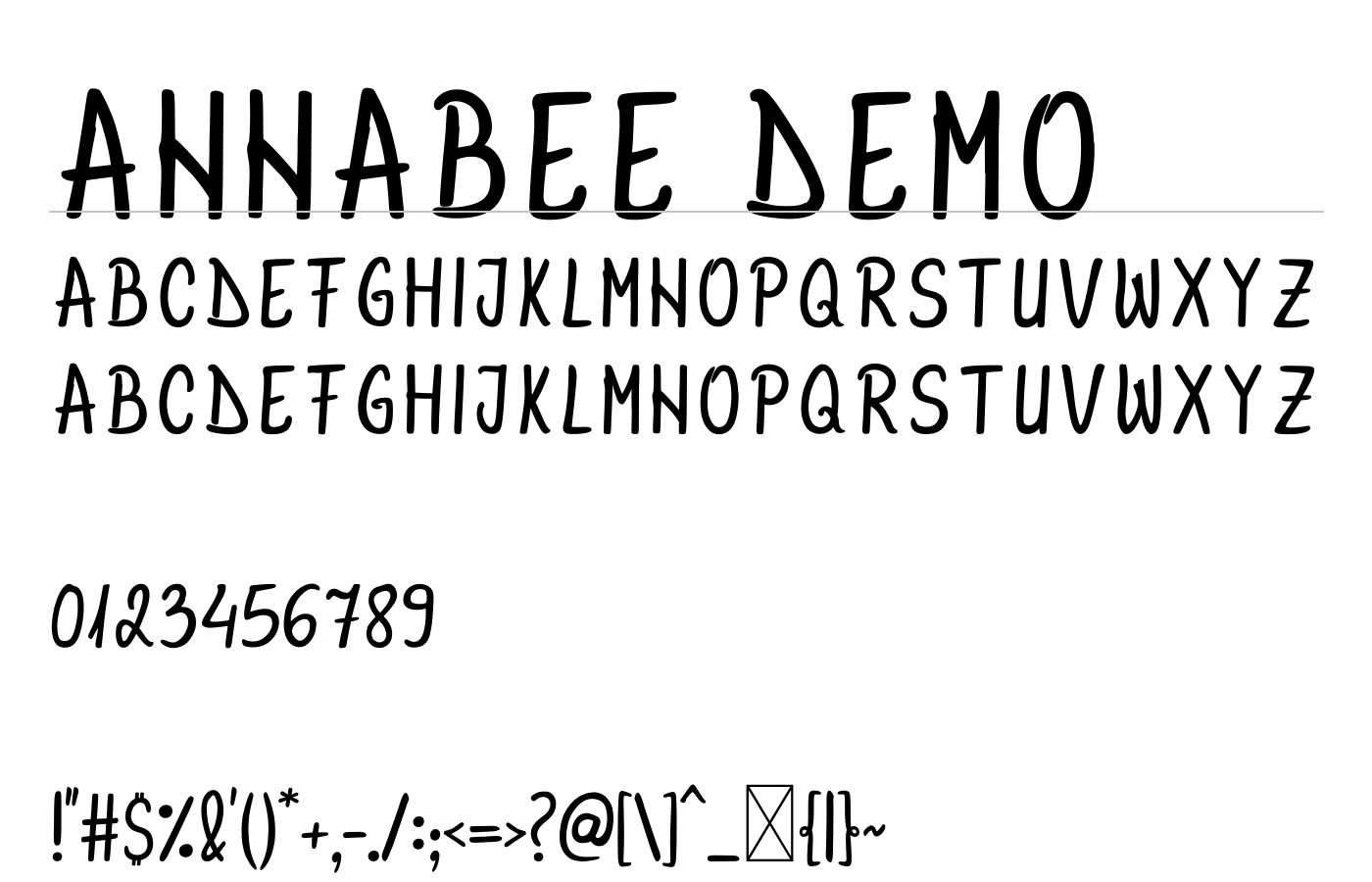
AnnaBee Demo is a playful, hand-drawn sans serif font with a casual and friendly vibe. Its uneven strokes and lively character shapes create an approachable, informal feel, making it great for creative projects, children’s materials, or branding that wants a personal, handwritten touch. This font works well in headings, logos, and designs that benefit from a cheerful and relaxed style.
AnnaBee Demo Font
About AnnaBee Demo Font